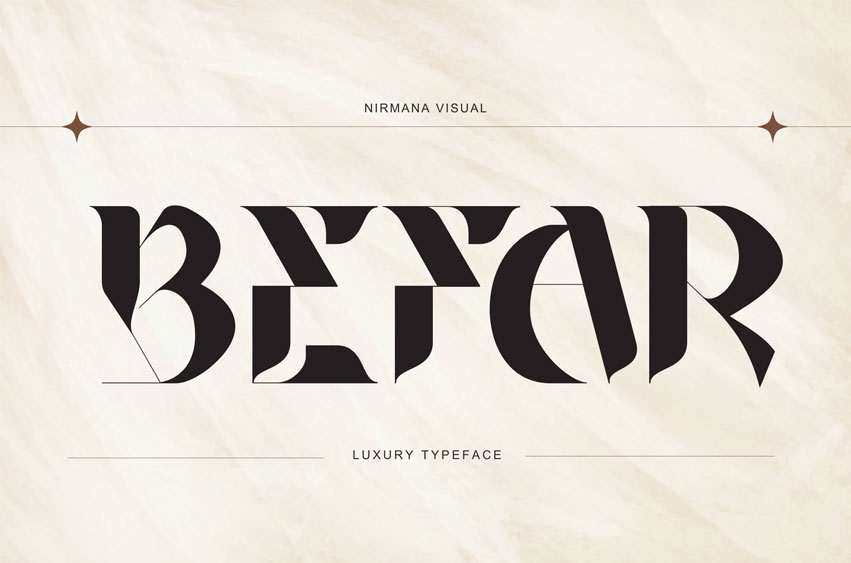
Befar Font Luxury Font offers beautiful typographic harmony for a diversity of design projects, including logos & branding, social media posts, advertisements & product designs.